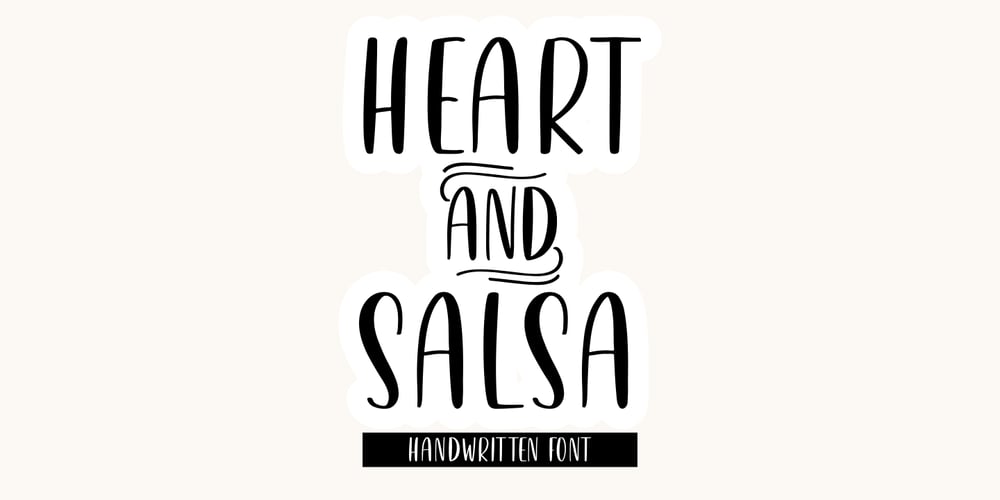
Heart & Salsa Font Family was designed by Muhammad Fikry and published by Fikryal. Heart & Salsa contains 1 styles and family package options. Heart & Salsa is a fancy font perfect for crafting, branding, invitation, stationery, wedding designs, social media posts, advertisements, product packaging, product designs, label, photography, watermark, special events, or anything.Heart & Salsa with a full set of uppercase letters, multilingual symbols, numerals, and punctuation.